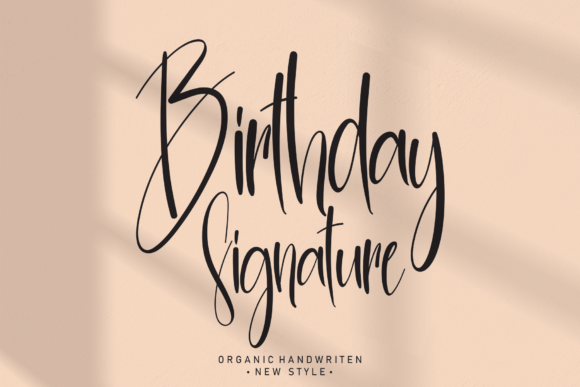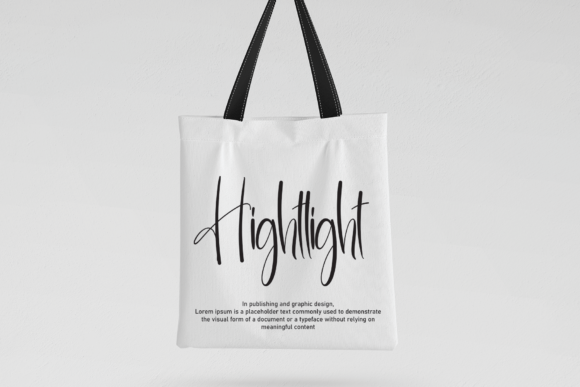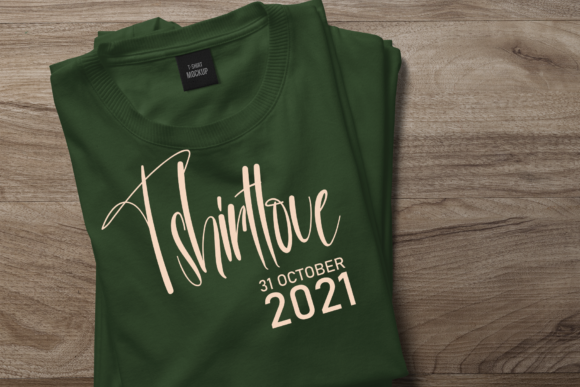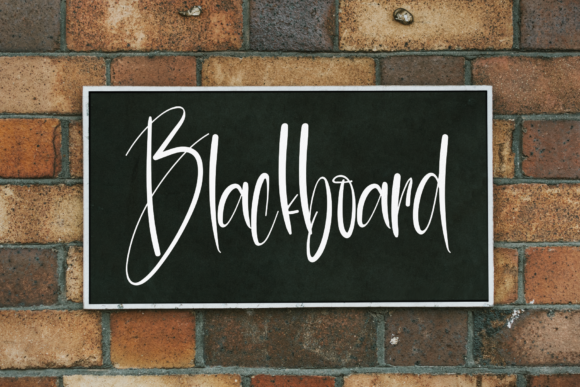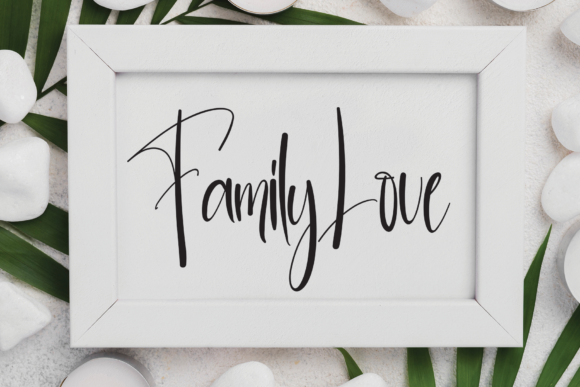
Birthday Signature Font
About Birthday Signature Font
Birthday Signature is an organic handwritten font, perfect for wall displays, wedding invitations, social media post logos, advertisements, product packaging, product designs, labels, photography, watermarks, invitations, and stationery.